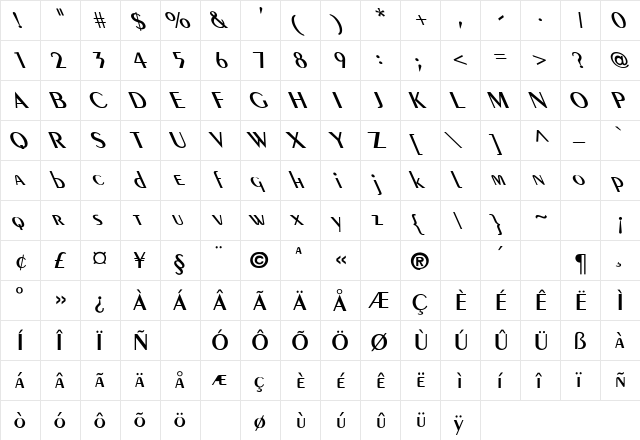
Peignot-Demi-Normal Leftified Regular
Design Context for Peignot-Demi-Normal Leftified Typeface
Peignot-Demi-Normal Leftified is a composed and adaptable typeface that performs quietly and consistently across a wide range of design contexts.